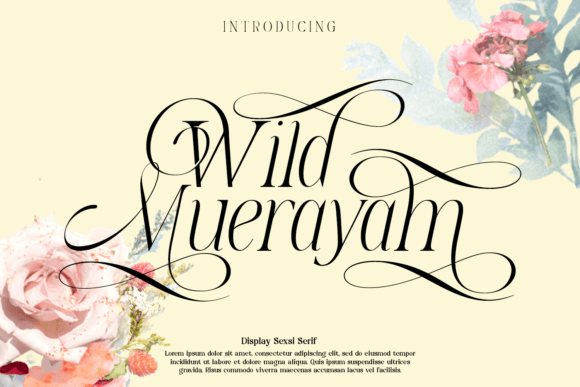
Dive into the world of typography with Wild Muerayam, a font brimming with elegance, modernity, functionality, and uniqueness. Its captivating display font features a serene text style and an expressive display, making it the perfect choice for a wide range of creative projects.
From captivating book covers that demand attention to striking posters that leave a lasting impression, Wild Muerayam is a font that commands presence. Unleash your imagination and craft magazine covers that exude sophistication and style, leaving readers eager to delve into the stories within.
The versatility of Wild Muerayam extends beyond the realm of print. Its aesthetically pleasing nature shines through in any medium, making it the ideal font for digital designs, branding, and even fashion. Elevate your online presence with a logo that reflects the essence of your brand, or create social media graphics that captivate audiences with their visual allure.
With its PUA encoding, Wild Muerayam offers effortless access to a treasure trove of glyphs and swashes. Unleash your creativity and explore endless possibilities, crafting designs that are both visually stunning and rich in meaning.
Immerse yourself in the world of Wild Muerayam and discover a font that transforms your creative visions into tangible masterpieces. Its enchanting style and limitless applications make it an essential tool for any designer seeking to leave an indelible mark on their audience.